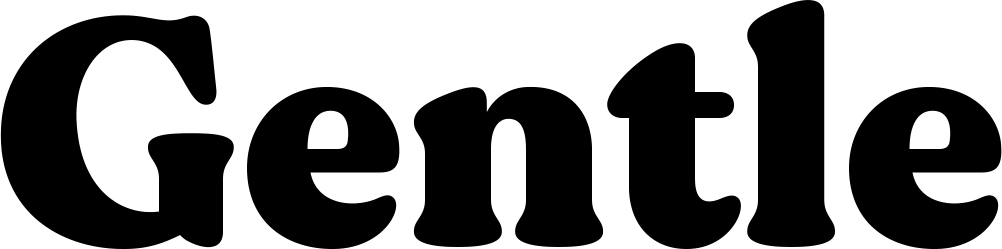
MADE Gentle Font
Wanting to adorn your typography with an animated and friendly touch, a modern serif font like MADE Gentle can act as a savior to stand out from your graphic competitors and expand your traffic amazingly. This serif font with cute chunky letters can bring freshness and youth sense to all your designing intentions; fashion, logos, magazines, photography, wedding invitations, quotes, posters, or whatnot.
MADE Gentle is a modern soft serif typeface.
MADE Gentle will perfect for many project: fashion, magazines, logo, branding, photography, invitations, wedding invitation, quotes, blog header, poster, advertisements, postcard, book, websites, etc.